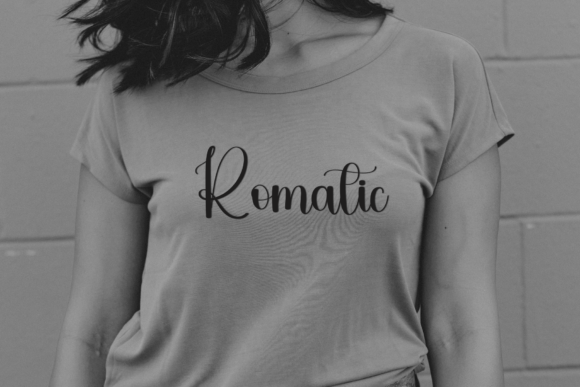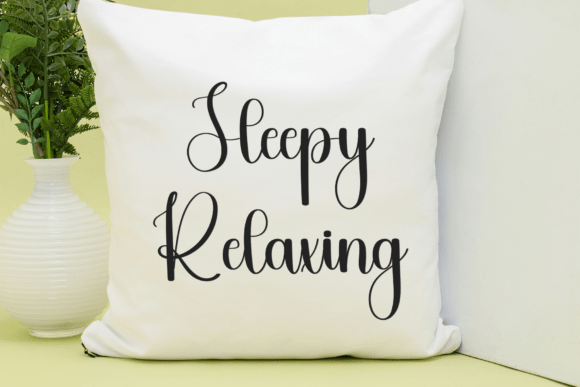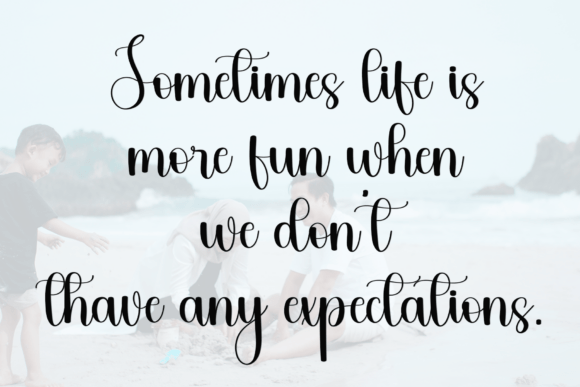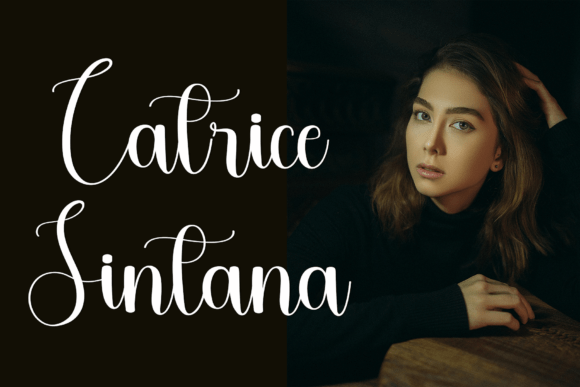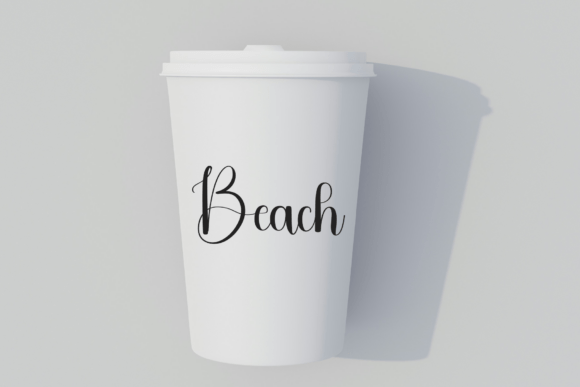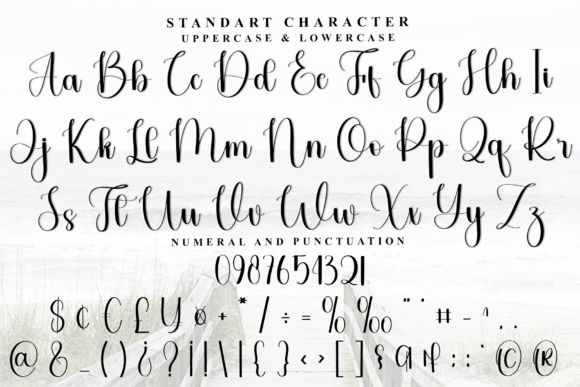
Discover the Timeless Charm of Angelina Font: Elevate Your Designs with Elegance
Are you on the hunt for a font that exudes elegance, sophistication, and a touch of whimsy? Look no further than Angelina Font, a lovely and timeless handwritten font that’s perfect for creating eye-catching logos, branding, and quotes. With its unique and beautiful touch, every letter is sure to make your design come alive!
The Beauty of Angelina Font
Angelina Font is a masterpiece of typographic design, boasting a distinctive handwritten style that’s both classic and contemporary. Its flowing curves, delicate lines, and subtle imperfections evoke a sense of warmth and personality, making it an ideal choice for designers and crafters looking to add a touch of humanity to their work.
One of the standout features of Angelina Font is its versatility. Whether you’re creating a logo, branding materials, or social media graphics, this font is sure to impress. Its elegant and refined appearance makes it perfect for high-end brands, while its playful and whimsical touch also lends itself well to more creative and artistic projects.
Why Choose Angelina Font?
So, what sets Angelina Font apart from other fonts on the market? Here are just a few reasons why designers and crafters are falling in love with this beautiful font:
- Unique and Beautiful Touch: Every letter in Angelina Font has been carefully crafted to showcase a unique and beautiful touch, ensuring that your designs stand out from the crowd.
- Timeless Appeal: Unlike trendy fonts that quickly go out of style, Angelina Font boasts a timeless elegance that’s sure to remain relevant for years to come.
- Versatile and Adaptable: Whether you’re working on a logo, brochure, or social media graphic, Angelina Font adapts seamlessly to any design style or format.
- Elegant and Refined: With its flowing curves and delicate lines, Angelina Font exudes an air of sophistication and refinement, perfect for high-end brands and luxury products.
Using Angelina Font in Your Designs
So, how can you incorporate Angelina Font into your designs? Here are a few ideas to get you started:
- Logos and Branding: Use Angelina Font to create a stunning logo or branding materials that showcase your brand’s personality and style.
- Quotes and Typography: Add a touch of elegance to your quotes and typography with Angelina Font, perfect for social media graphics, posters, and flyers.
- Packaging and Product Design: Elevate your packaging and product design with Angelina Font, adding a touch of sophistication and refinement to your products.
Tips and Tricks for Working with Angelina Font
To get the most out of Angelina Font, here are a few tips and tricks to keep in mind:
- Experiment with Font Sizes: Play around with different font sizes to find the perfect balance for your design, from large and bold to small and delicate.
- Pair with Other Fonts: Combine Angelina Font with other fonts to create a unique and eye-catching typography style.
- Pay Attention to Kerning: Take the time to adjust the kerning and spacing between letters to ensure a smooth and elegant appearance.
In conclusion, Angelina Font is a truly special font that offers a unique combination of elegance, sophistication, and whimsy. Whether you’re a designer, crafter, or simply someone who appreciates beautiful typography, this font is sure to captivate and inspire. With its timeless appeal, versatility, and beautiful touch, Angelina Font is the perfect choice for anyone looking to elevate their designs and add a touch of magic to their work.